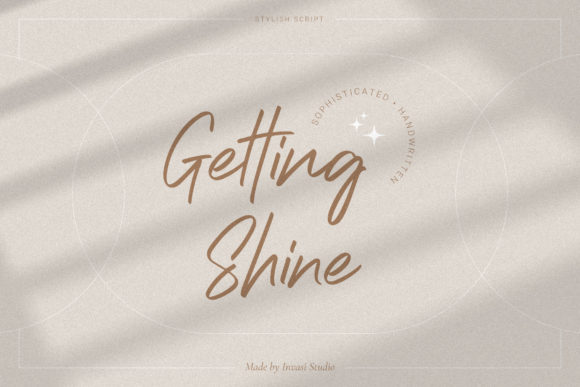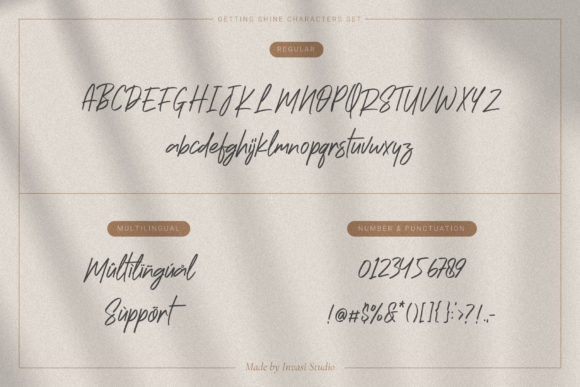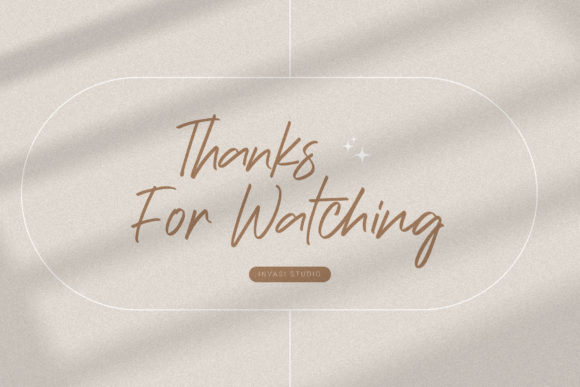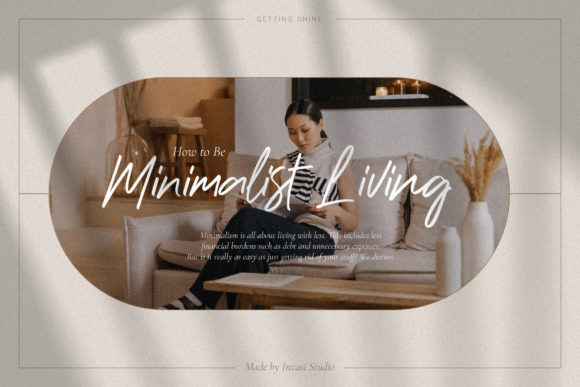
About Getting Shine Font
Getting Shine is a relaxed, cursive and adaptable handwritten font. It can be used for various purposes such as logos, wedding invitations, headings, t-shirts, letterhead, signage, labels, news, posters, badges and so much more.